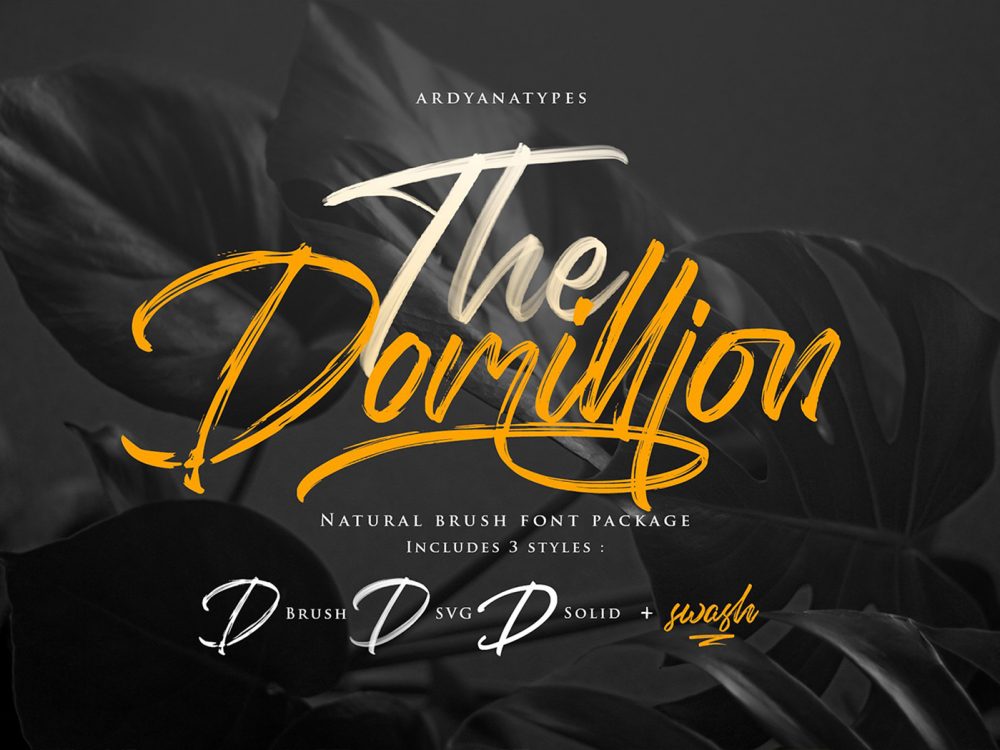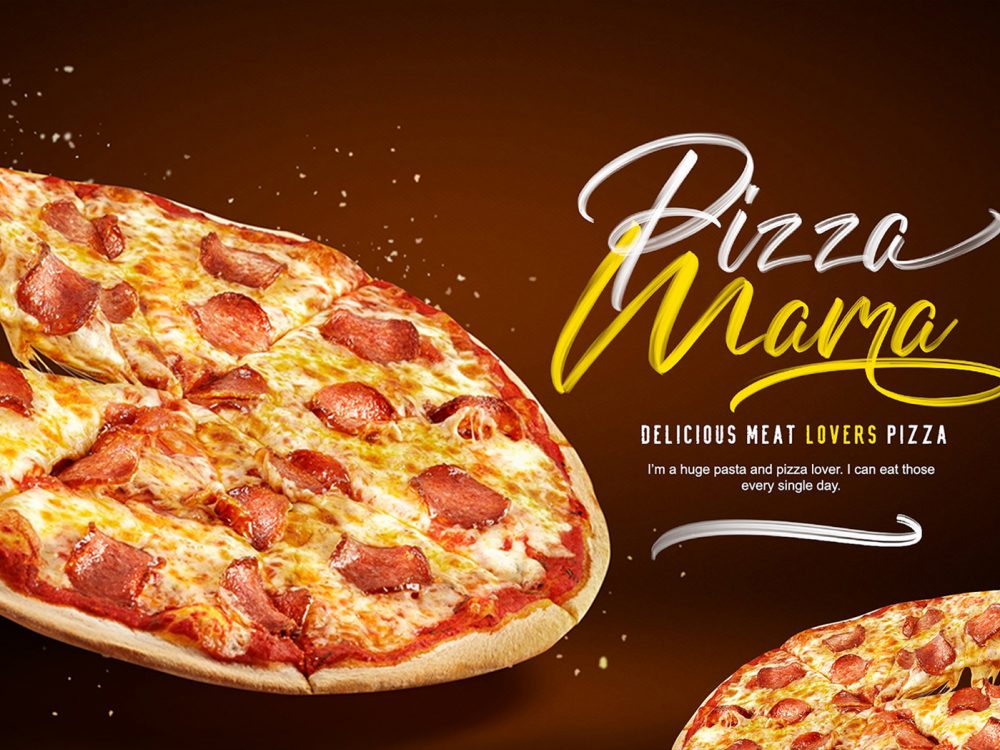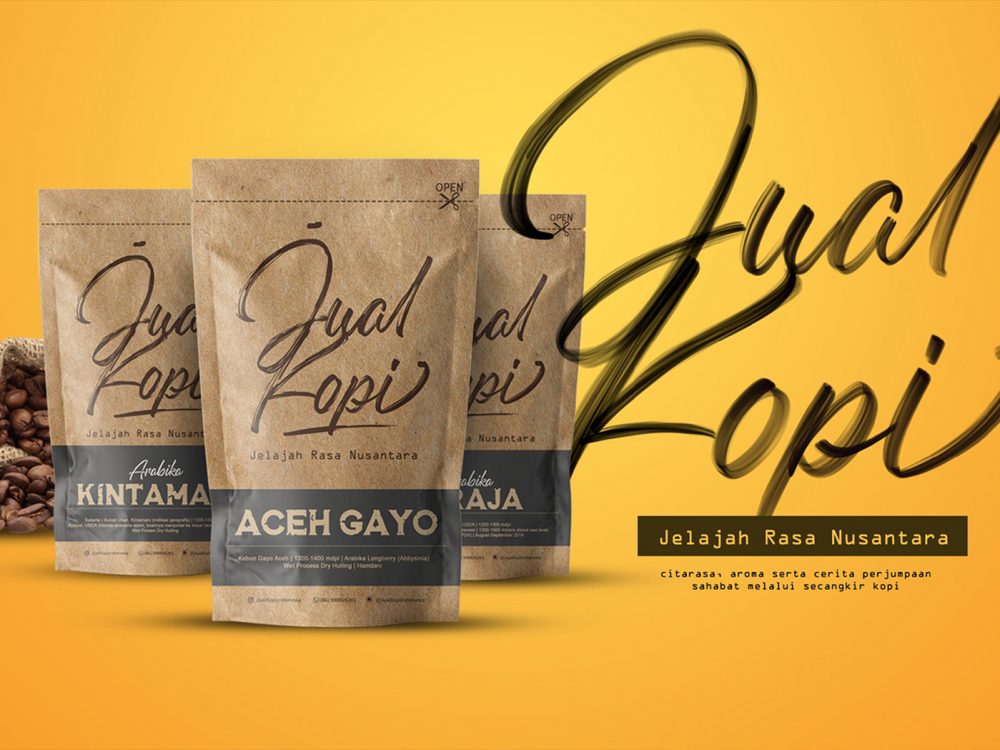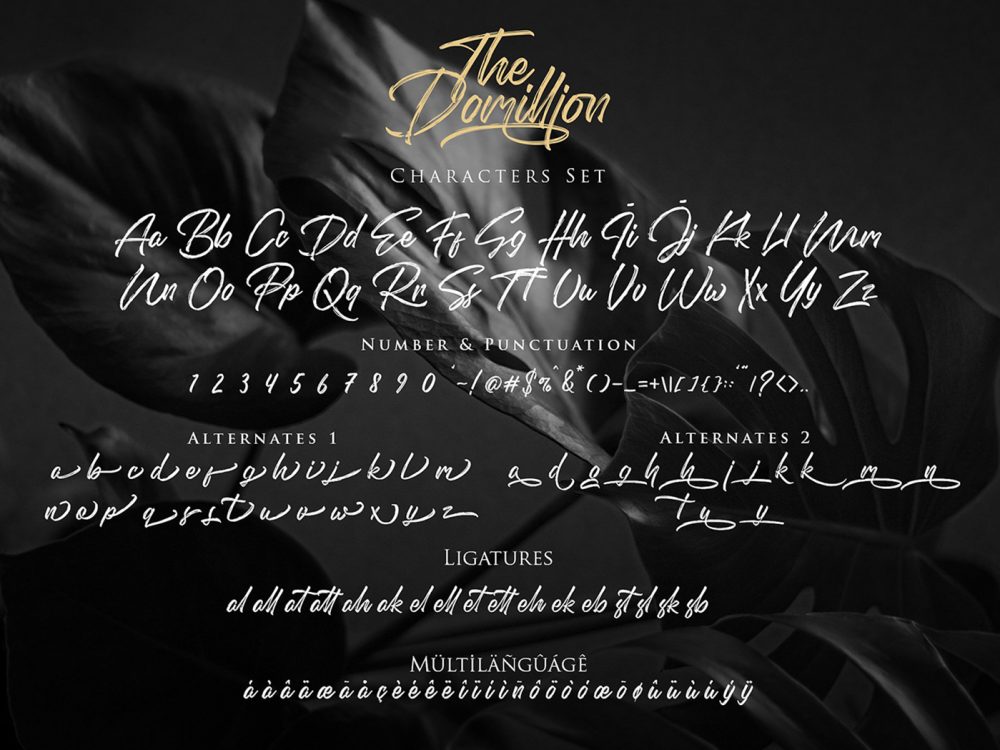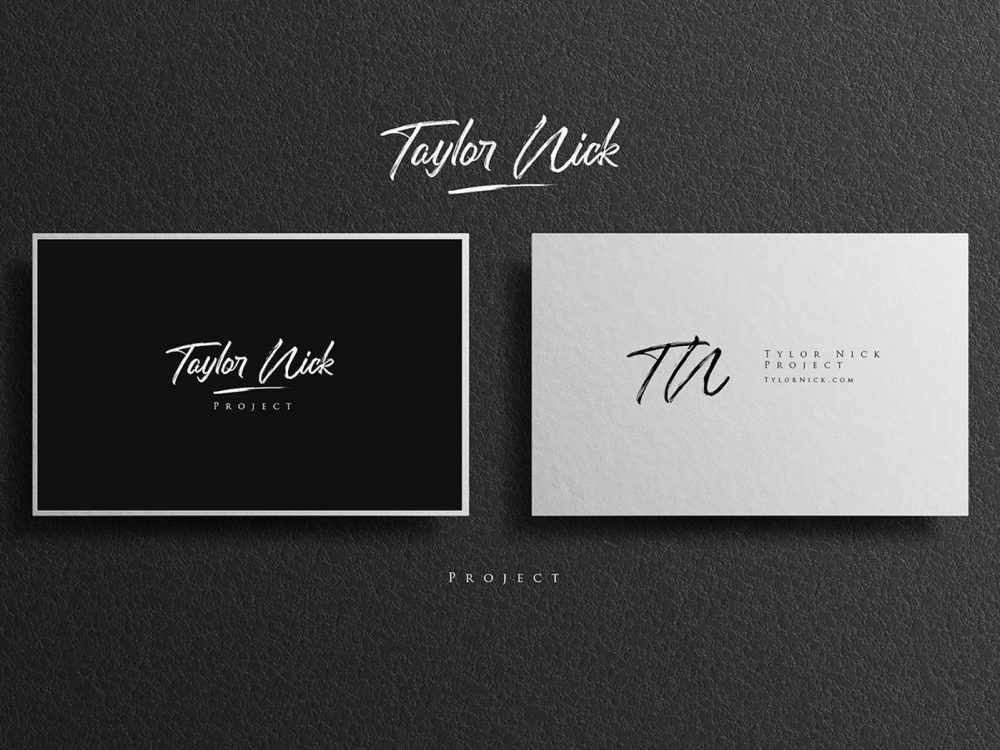
Domillion Brush Font Free
Domillion Brush Font Free is an interesting handwritten font that differs from others in the presence of natural hand scratches. This font will add uniqueness to any of your design projects. You can use this font to create posters, cards, invitations, prints, and more. If you want to use it for commercial work please buy the full version.